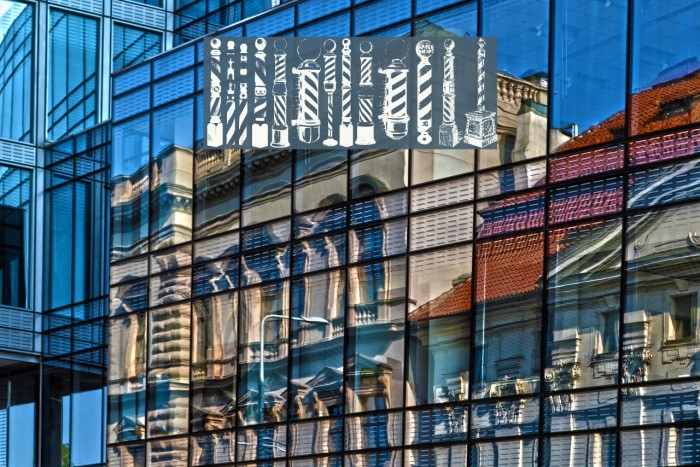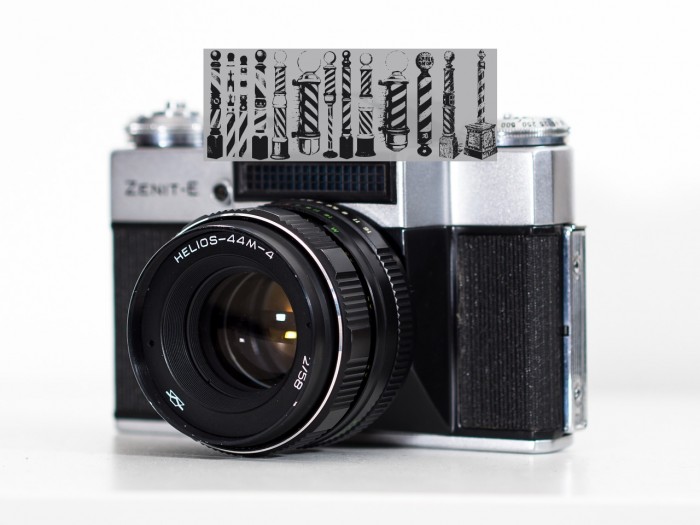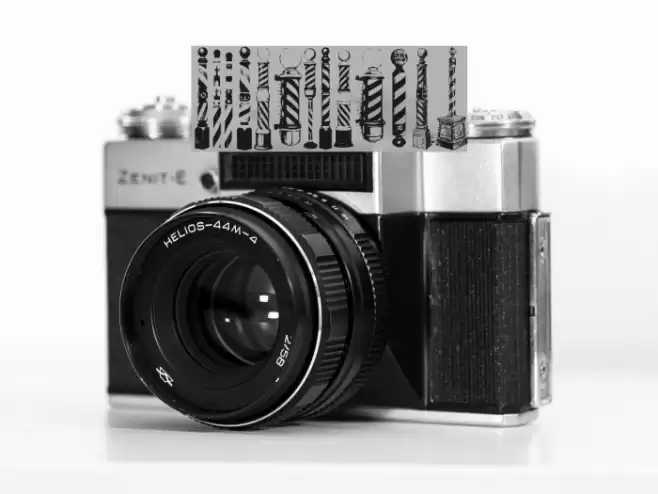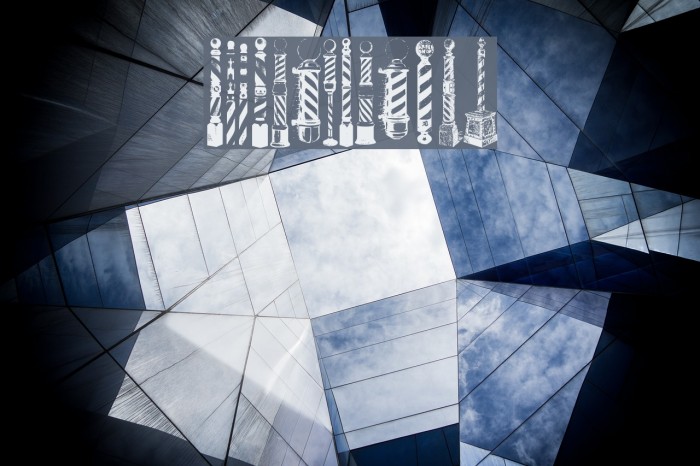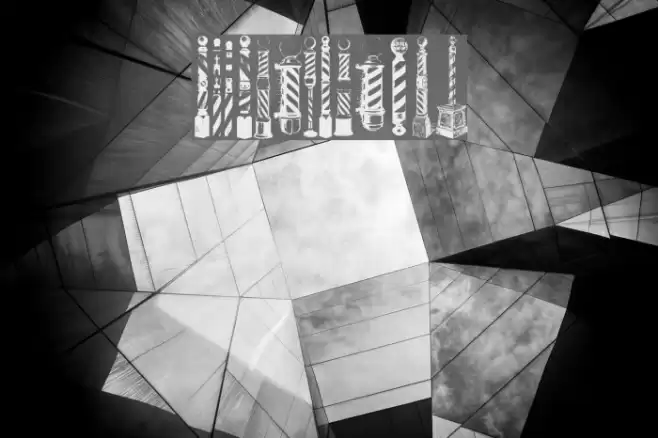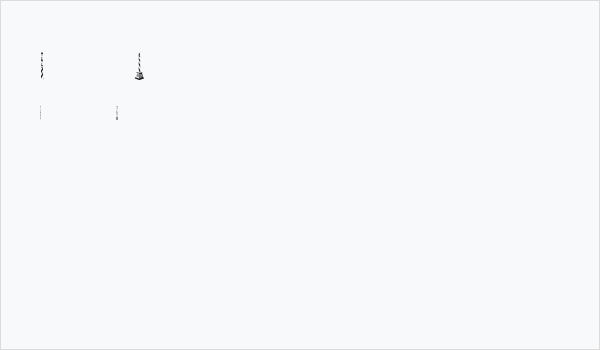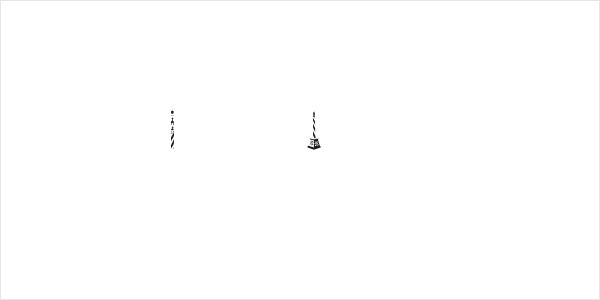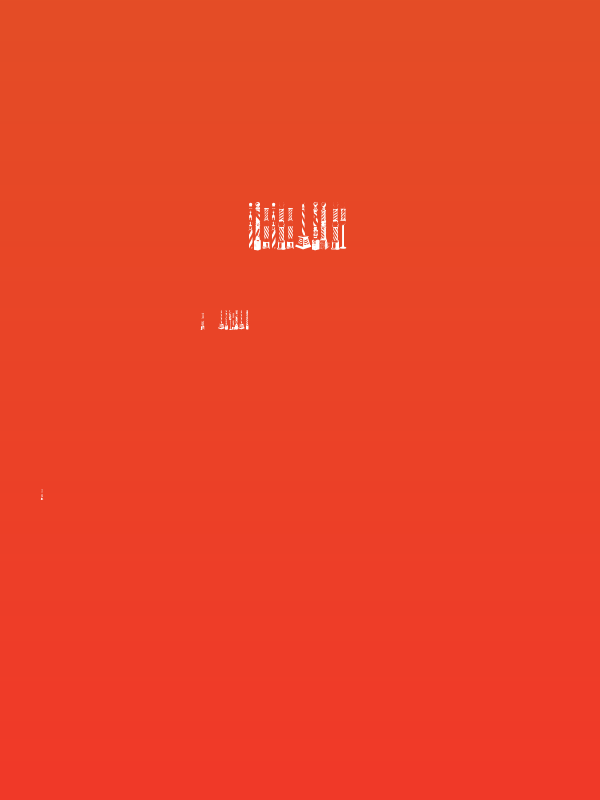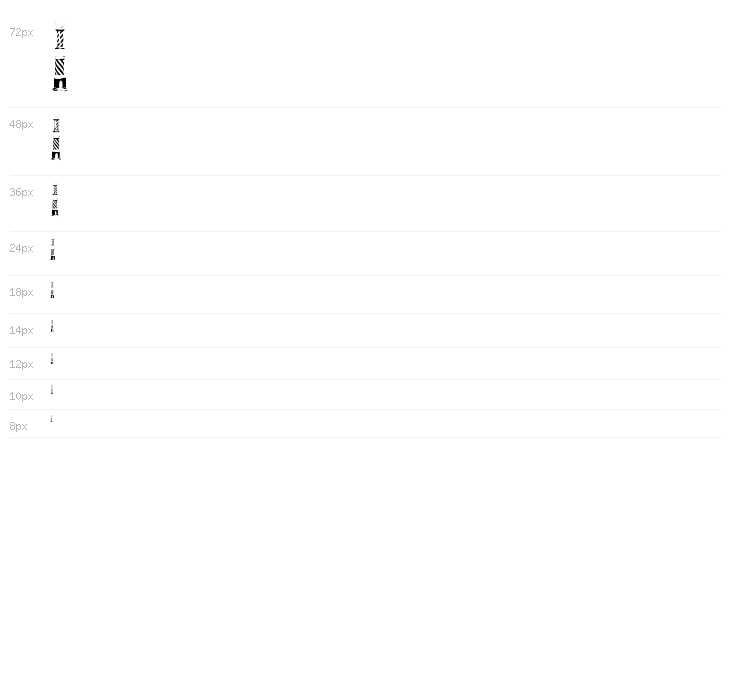
BarberPoles Font
BarberPoles Description
This font is a creative and decorative representation of barber poles, where each character is uniquely designed to resemble a traditional barber pole with its iconic spiral stripes. The intricate details and artistic flair make it stand out as a display font, perfect for capturing attention. The design incorporates a variety of patterns and textures, adding depth and visual interest to each character. The overall look is playful yet sophisticated, making it suitable for themed projects that require a touch of nostalgia or a vintage feel.
| Use Case | Logos, Posters, Themed Events |
| Proposed Projects | Ideal for barbershop branding, themed event posters, vintage-style advertisements, and creative design projects that require a unique and eye-catching typeface. |